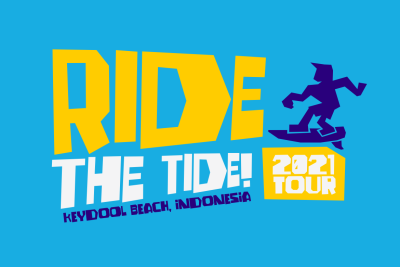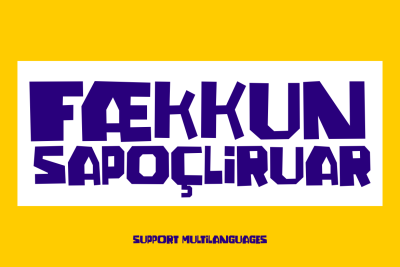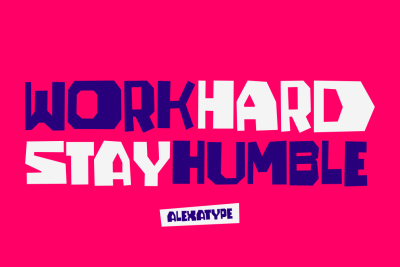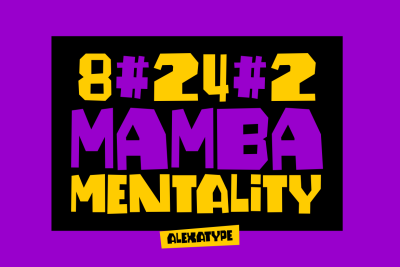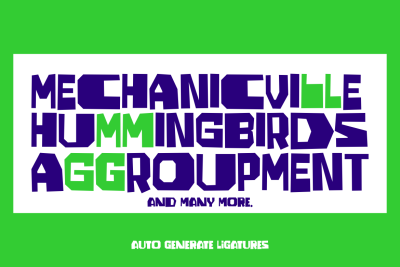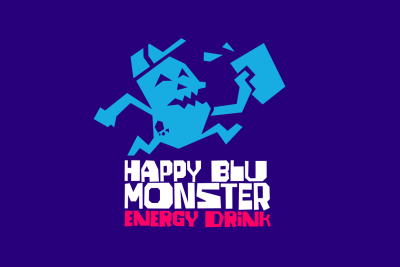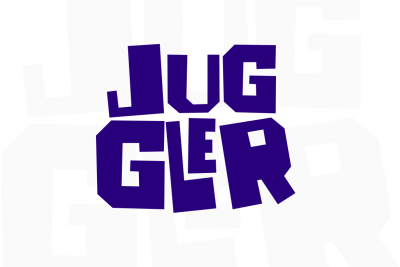
Funny Font Juggler is a bold, playful, and geometric typeface designed to grab attention and evoke a sense of fun. Its irregular, oversized characters create a dynamic and lively visual impact, making it perfect for brands or creators who want to stand out in the competitive world of social media. With sharp angles and vibrant aesthetics, this font brings an energetic and youthful vibe to any design project. The highly legible letterforms, paired with a mix of sharp and rounded elements, make it versatile for various modern applications. Jugglerโs quirky, almost hand-cut feel ensures it remains approachable, despite its bold nature.
This font is a dream for graphic designers looking to experiment with creative compositions. Whether used in poster art, Instagram stories, or branding, Juggler is sure to leave a lasting impression. The bold magenta and purple colors shown in the design are suggestions that this typeface thrives in high-contrast or maximalist color palettes. At the same time, its structured yet unpredictable style ensures flexibility across mediums, from digital banners to packaging.
Funny Font Juggler Best For
Funny Font Juggler is best suited for creators and brands in the fashion, lifestyle, and entertainment industries. Its boldness is ideal for anyone who wants to communicate excitement, energy, and creativity. Perfect for influencers designing standout Instagram content, small businesses looking to refresh their visual identity, or event organizers creating striking posters, Juggler can adapt to a range of contexts.
For content creators on Instagram, this font’s lively and unconventional design is a great way to make posts, reels, and stories pop. It appeals to a youthful demographic, particularly those in the Gen Z and millennial markets who favor vibrant, playful visuals. Juggler is also an excellent choice for designers working on childrenโs book covers, festival branding, or indie music album art. Its uniqueness offers endless opportunities to craft designs that are both memorable and impactful.